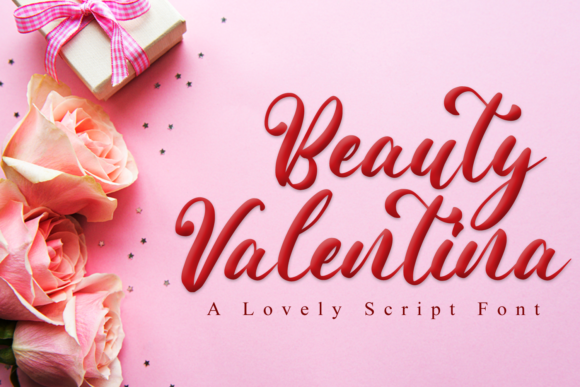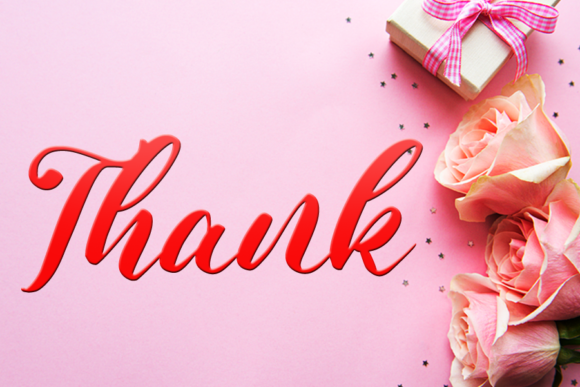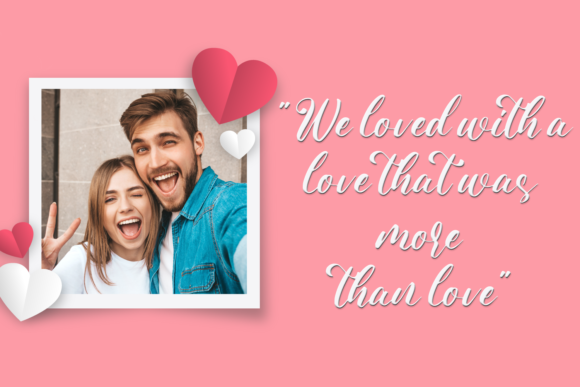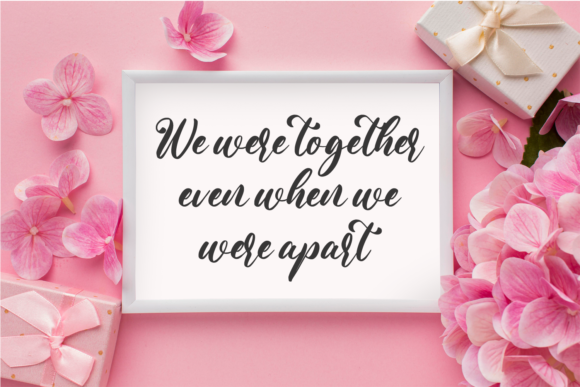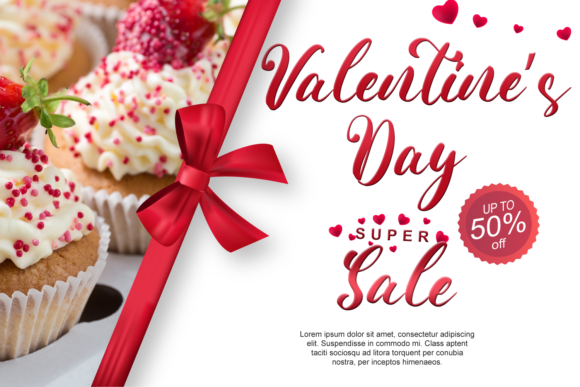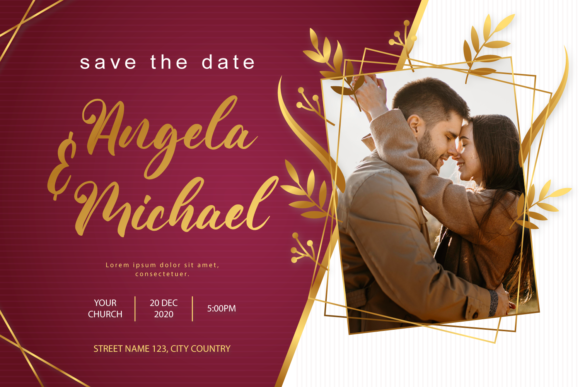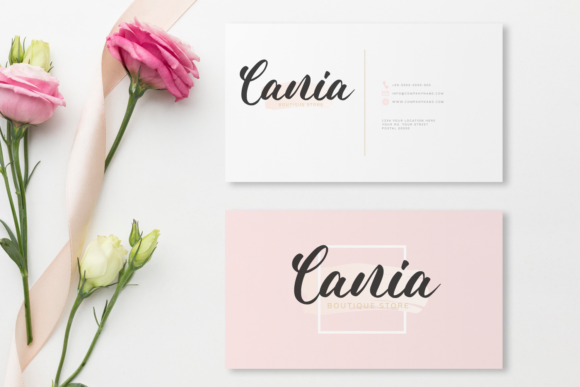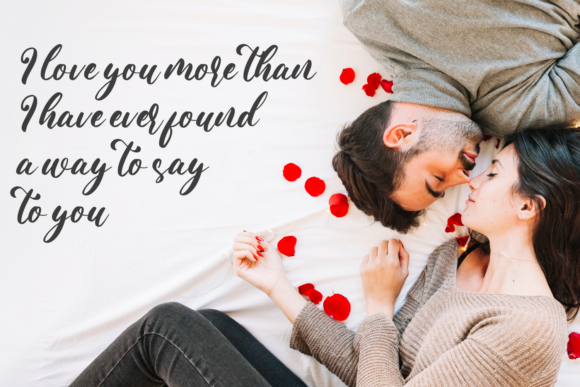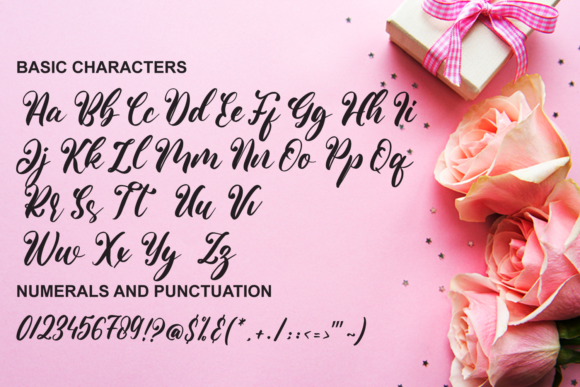
Beauty Valentina Font
About Beauty Valentina Font
Beauty Valentina is a minimalist and beautiful script font. Its casual charm makes it appear wonderfully down-to-earth, readable and versatile. Valentine will look outstanding in any context, whether it’s being used on busy backgrounds or as a standalone headline!